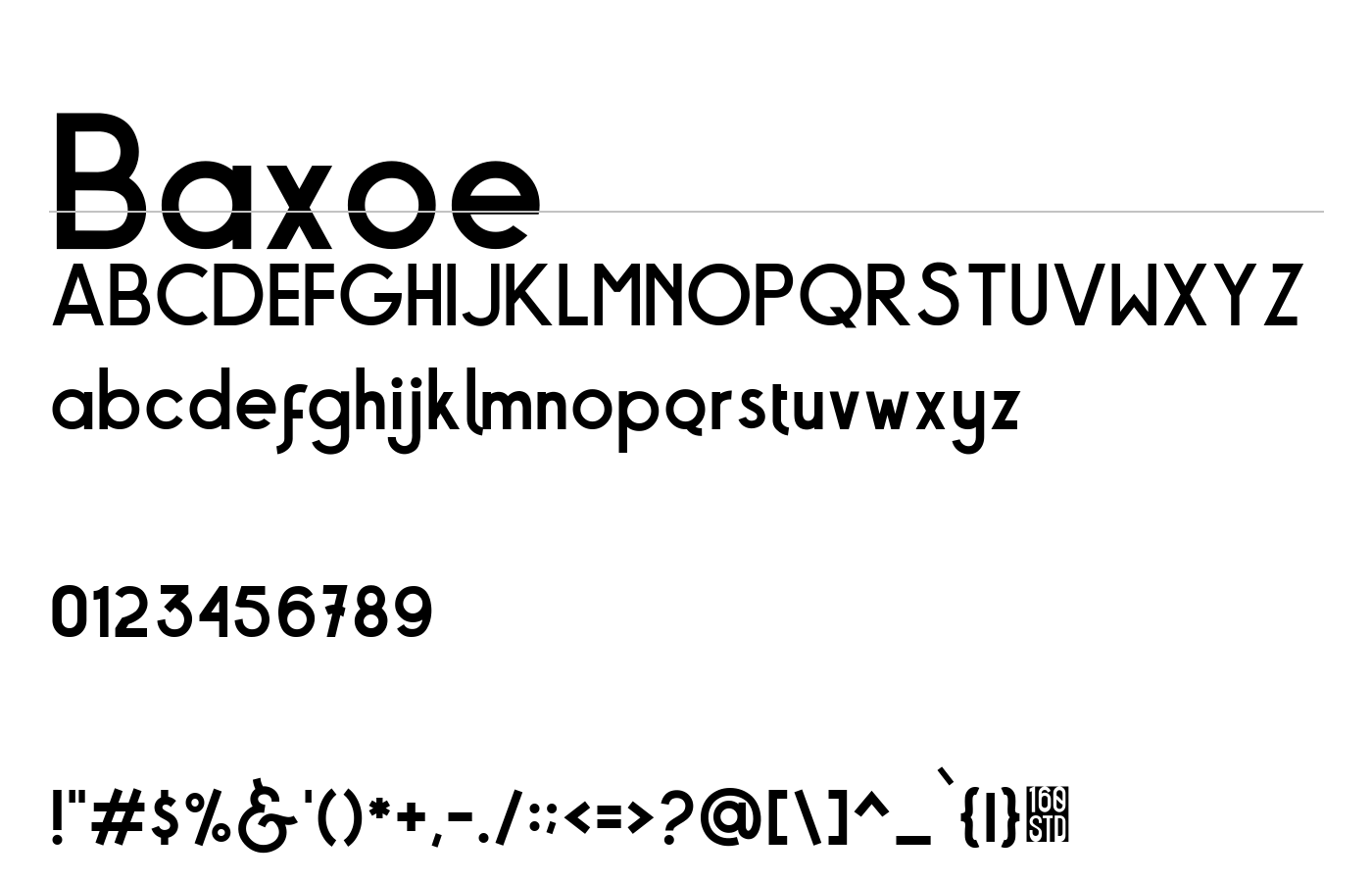
Baxoe is a modern sans serif font featuring a clean, geometric design with a slightly condensed width and medium weight. Its tall x-height and unique letterforms, such as the single-story 'a' and 'g' and distinctive 'Q' tail, give it a contemporary and stylish feel that's both readable and visually engaging. Ideal for branding, editorial headlines, and digital use, Baxoe combines elegance with a fresh, urban vibe that suits modern, creative projects well.
Baxoe Font
About Baxoe Font
| Font family | Baxoe Font |
| Designer | 160 Studio |